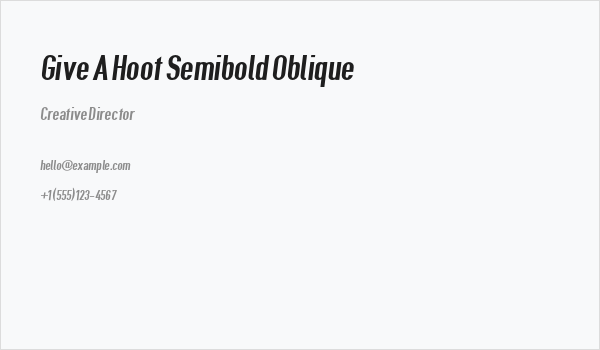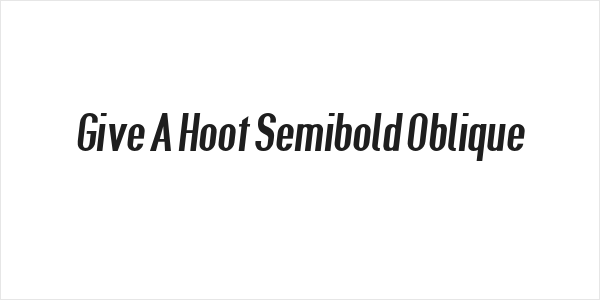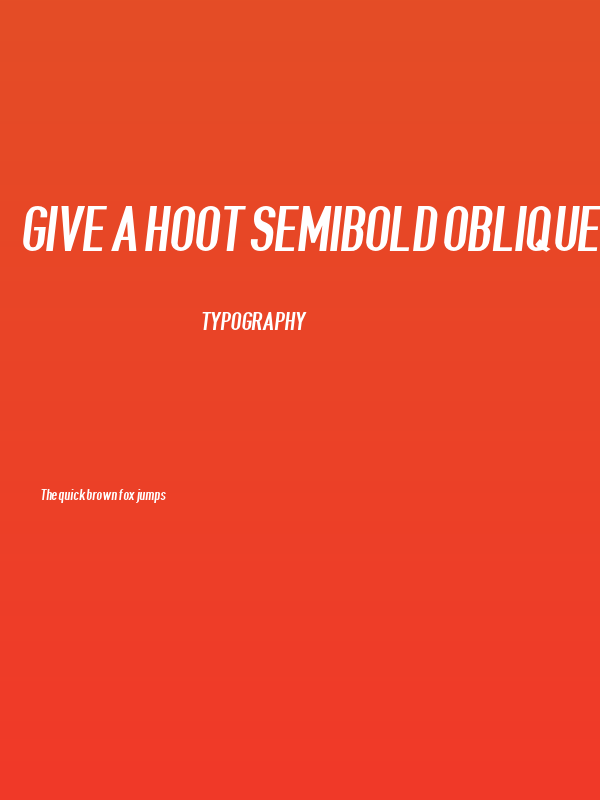
Give A Hoot Semibold Oblique Font
Give A Hoot Semibold Oblique Description
This font features a dynamic and modern style with a distinct oblique slant, giving it a sense of motion and energy. The characters are bold and slightly condensed, providing a strong visual impact while maintaining readability. The uppercase and lowercase letters are well-proportioned, with consistent stroke widths that add to its cohesive appearance. The numerals and special characters are designed to match the overall style, ensuring versatility across various applications. The font's clean lines and contemporary aesthetic make it suitable for a wide range of design projects.
| Use Case | Headlines, Logos, Advertising |
| Proposed Projects | Ideal for branding, advertising, headlines, and digital media projects that require a modern and energetic look. |